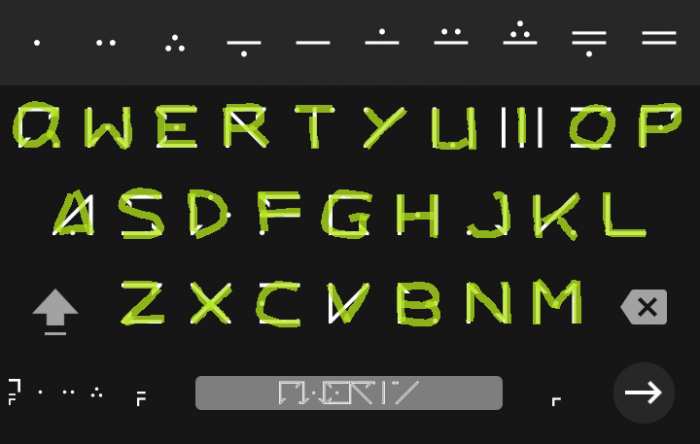
Before complaining that the font is unreadable, please read this description below:
1.Why is it so unreadable?
This font was intended for people who want to pass secret messages unknown to others. Over a year ago, I first developed this as a handwriting, using it during class with my classmate. This was not intended for daily use, it's for novelty use only. (but, well, I used this as my phone's system font...)
Over time, I revised it and developed a system to make the font more standarized (all basic letters follow simple rules, discussed in point 3). This took a long time. (Please don't think I just suddenly make this font out of nowhere...)
2.How can I read this?
If you look carefully, you may see that that the letters are actually abstract or inclomplete representation of the regular latin letters (some are even the same). For example, the two dots symbolize the two curves of a capital B.
3.What rules?
All basic letters have 2-3 components. These components may be: a line, a line with hook, a diagonal line, and a dot. The lines may intersect with each other. The letters also have equal width and height, making it very bulky.
The numerals somewhat follow the Roman Numerals, i.e. four is one (dot) less than five (dash). But two dashes on top of each other is zero, so it's not really like Roman Numerals :/.
The symbols, on the other hand, are more free, most symbols don't follow the rules for the basic letters, except for some letterlike symbols.